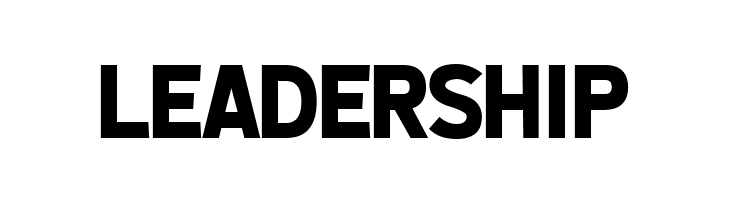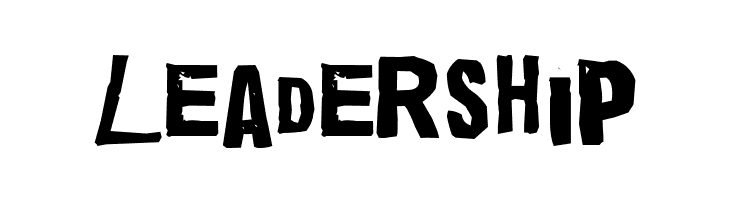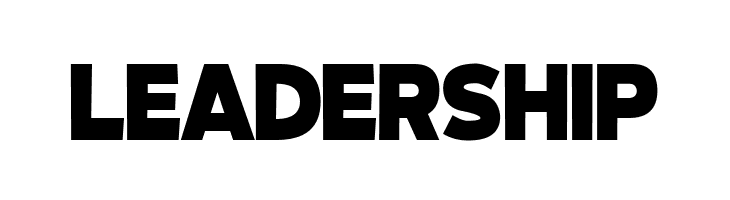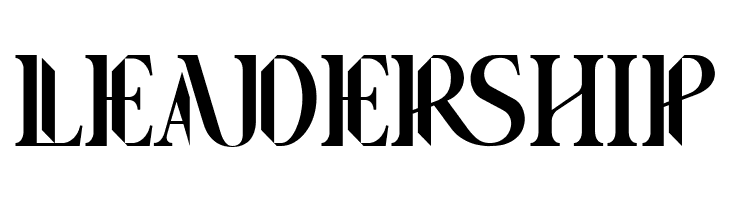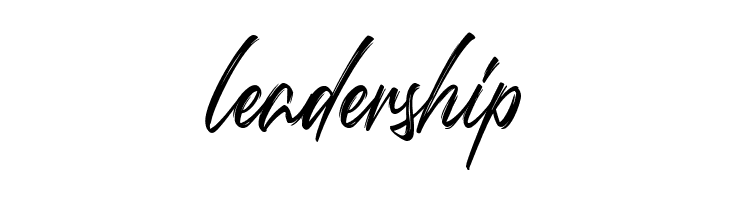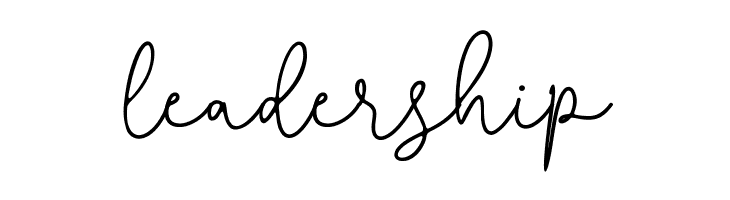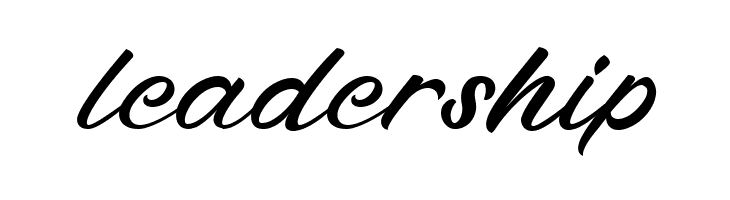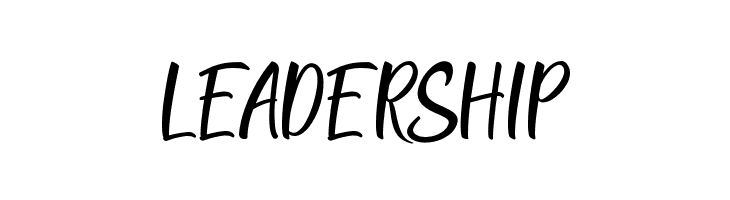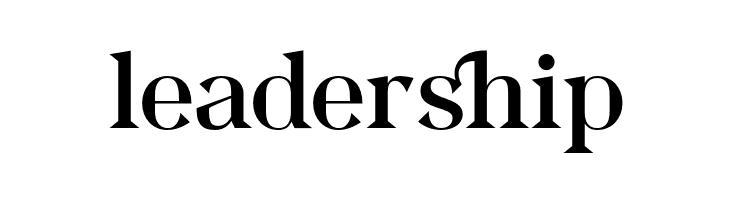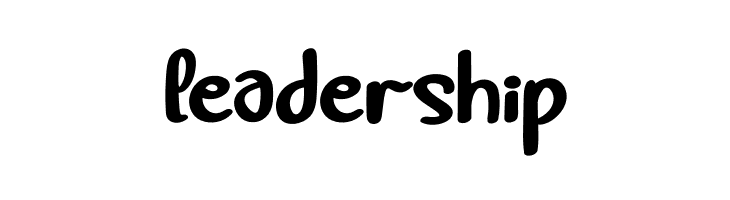
A bold, rounded font with smooth curves and a modern, approachable style.
A bold, italicized font with rounded edges and a modern, playful style.
A sleek, modern italic font with smooth curves and consistent stroke widths.
A sleek, modern font with clean, rounded edges and a minimalist aesthetic.
A sleek, modern, and slightly italicized font with a light, airy feel.
A modern, striped font with a geometric and decorative style.
A playful handwritten font with flowing, cursive-like strokes.
A bold, high-contrast serif font with sharp, angular serifs and a modern flair.
A playful, elegant handwritten font with flowing cursive letters.
A dynamic, brush-style font with fluid, handwritten strokes.
A graceful script font with flowing, cursive strokes and a refined appearance.
A bold, futuristic font with slanted, geometric characters.
A bold, geometric font with a futuristic and edgy style.
A bold, layered font with a three-dimensional, geometric style.
A playful, handwritten font with tall, narrow letters and a casual style.
A creative pictogram font with diverse, surreal icons for each character.
A bold, geometric font with thick, uniform strokes for impactful text.
A bold, geometric font with strong, uniform strokes and excellent readability.
A bold, geometric font with strong lines and a modern aesthetic.
A fluid, cursive font with a natural handwritten style.
A classic serif font with elegant serifs and medium contrast, ideal for sophisticated designs.
A lively and expressive handwritten font with fluid, dynamic strokes.
A flowing, cursive font with elegant, sweeping strokes and interconnected characters.
A bold, geometric font with sharp angles and a blocky design.
A modern, elegant script font with flowing, cursive characters.
A bold, playful handwritten font with rounded edges and a casual style.
A modern, geometric sans-serif font with uniform strokes and high legibility.
A bold, handwritten script font with a dynamic and fluid style.
A lively and fluid script font with a handwritten feel.
A bold, handwritten font with a playful and casual style.
Bold, festive script with calligraphic, hand-drawn style.
A bold, cursive script font with a fluid, handwritten style.
A bold, hand-drawn font with a rough, textured appearance and dynamic style.
A playful, informal handwritten font with irregular, whimsical letterforms.